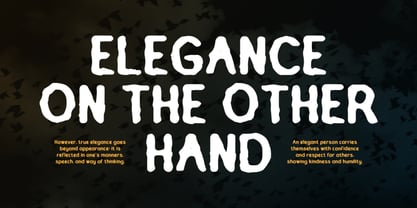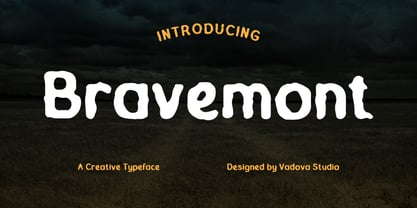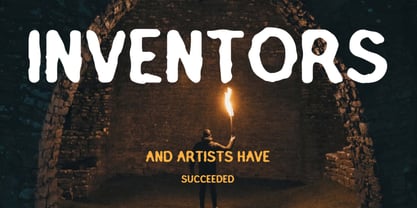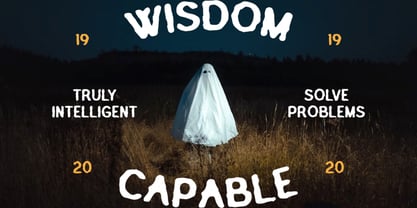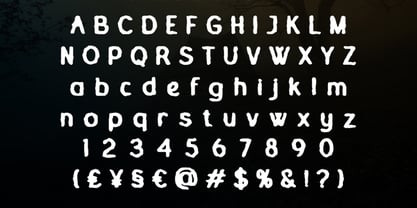
Bravemont
by Vadova Std
The Bravemont Font Family and published by Vadova Std. Bravemont contains 1 styles. More about this family
Bravemont is a spooky handcrafted typeface featuring irregular organic shapes, playful horror-inspired curves, and bold character forms designed to create eerie visual impact. The font includes uppercase, lowercase, numerals, punctuation, making it suitable for expressive branding and themed creative projects.
Relevance & Use Cases is relevant for Halloween promotions, horror movie posters, spooky event branding, gaming graphics, haunted house campaigns, and themed entertainment projects. Its playful creepy style works effectively for children’s Halloween designs, horror merchandise.
Foundry: Vadova Std